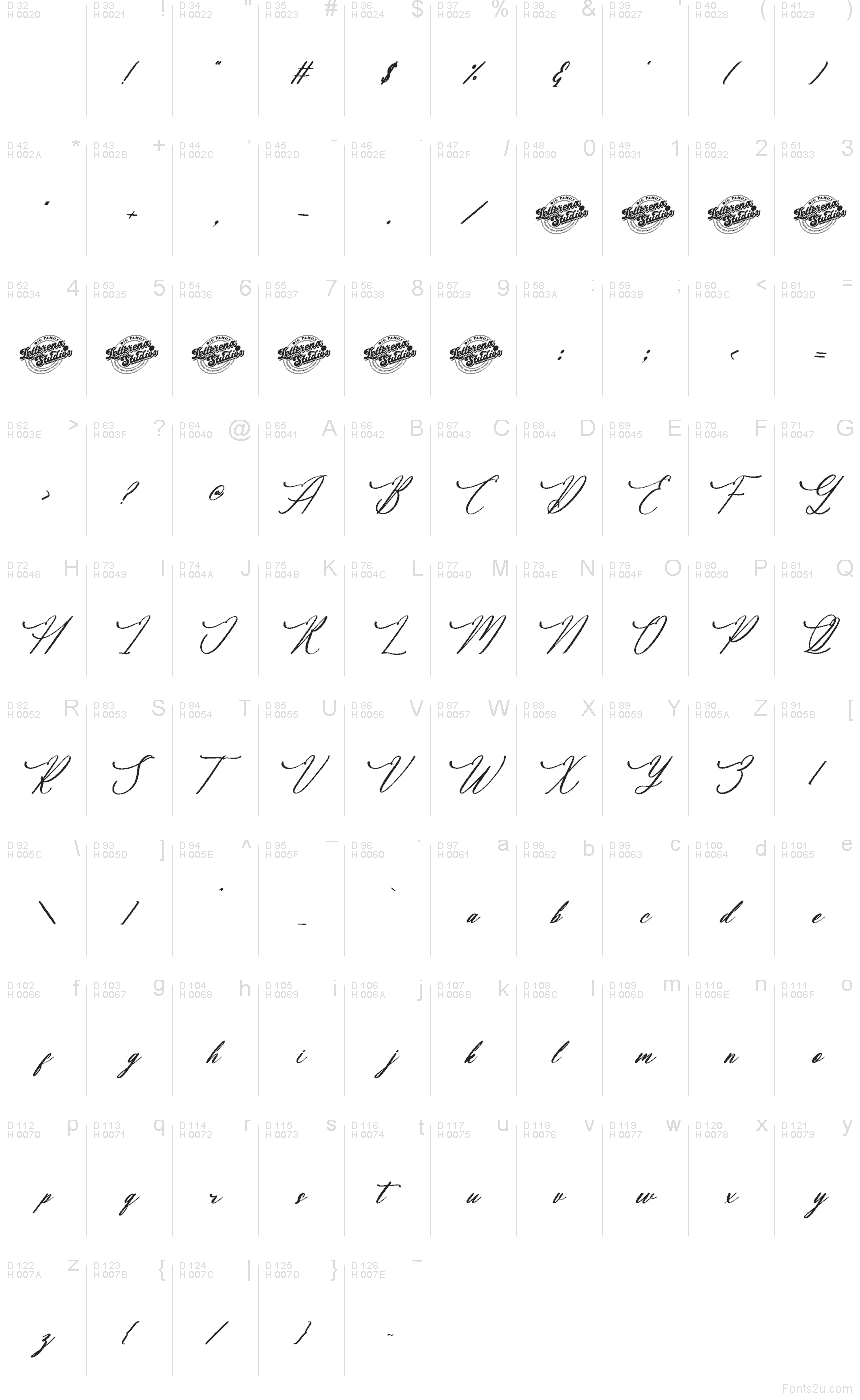
Bastimber Mofatega DEMO VERSION Italic
Bastimber Mofatega Italic font by Letterena Studios is a free handwritten typeface that captures the sweep of an inky, fast-moving signature. Its tall, slanted letters and long, whistling entry strokes feel like they were written with a flexible nib on smooth paper, giving every word a sense of motion and drama. The Bastimber Mofatega family’s italic style leans into romance and formality without feeling stiff, thanks to its slightly rough, pen-drawn texture.
Using Bastimber Mofatega Italic, your text immediately feels bespoke—made for wedding invitations, save-the-dates, logos, personal branding marks, packaging, quote graphics, and elegant social media headers. This free font shines when you give it room to breathe at larger sizes, then pair it with a clean, neutral sans serif for supporting details. The result is a rich contrast between expressive script and calm, modern text that keeps designs both legible and luxurious.